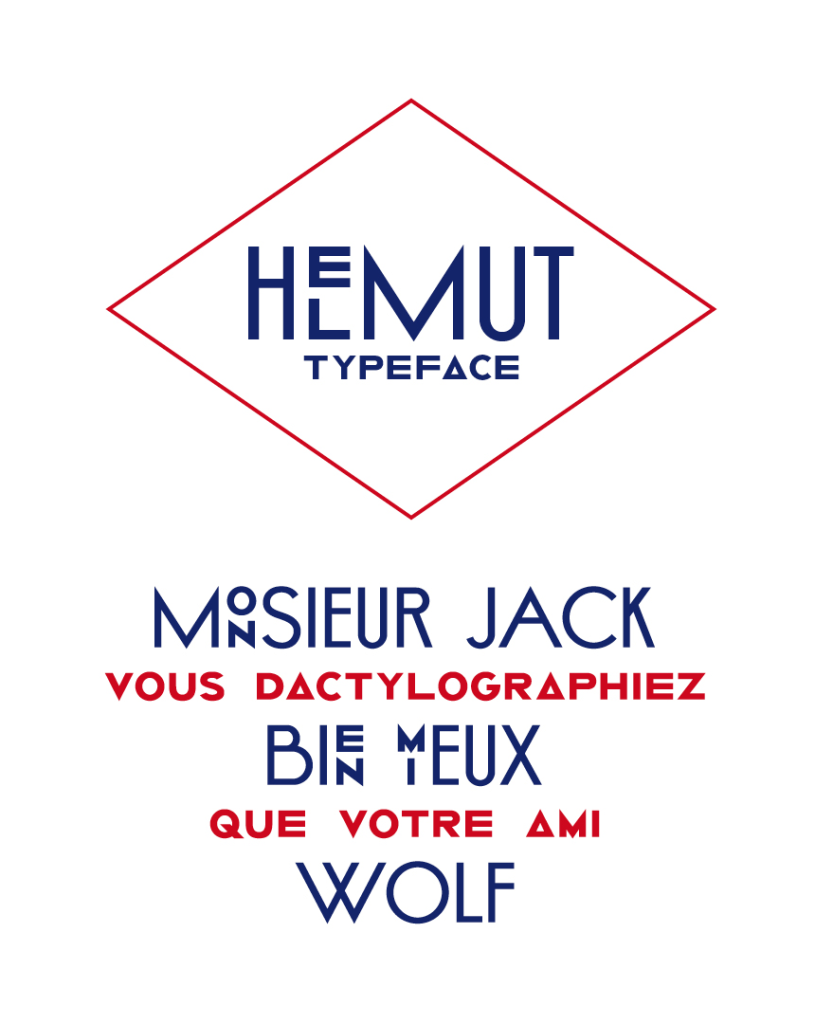
Helmut typeface by Superscript²
Typographic work and development based on a typeface found on an old newspaper article of “L’Illustration”. Work in process, 2010.